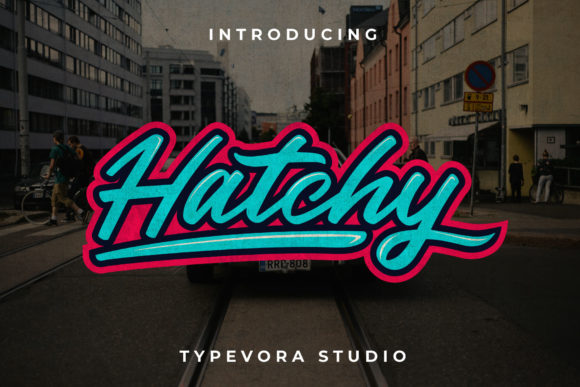
Hatchy Font: The Ultimate Guide to Adding a Spark of Joy to Your Designs
Hatchy is a catchy, cheerful and vibrant script that will add a spark of joy to any design idea! This delightful font is perfect for designers and crafters looking to infuse their projects with a playful and energetic vibe. In this comprehensive article, we’ll dive into the world of Hatchy Font, exploring its features, uses, and benefits, as well as provide tips and inspiration for incorporating it into your designs.
What is Hatchy Font?
Hatchy Font is a modern script font that boasts a unique and charming personality. Its curly, swirly letters are designed to evoke a sense of happiness and friendliness, making it perfect for projects that require a touch of whimsy and playfulness. Whether you’re working on a branding project, a craft tutorial, or a social media graphic, Hatchy Font is sure to bring a smile to your audience’s faces.
Key Features of Hatchy Font
- Catchy and Cheerful: Hatchy Font is designed to be attention-grabbing and fun, making it perfect for headlines, titles, and other design elements that need to stand out.
- Vibrant and Energetic: The font’s playful and dynamic feel makes it ideal for projects that require a burst of energy and creativity.
- Script Style: Hatchy Font features a beautiful, flowing script style that’s perfect for adding a touch of elegance and sophistication to your designs.
- Easy to Read: Despite its playful nature, Hatchy Font is surprisingly easy to read, making it suitable for use in body text and other longer-form content.
Uses for Hatchy Font
Hatchy Font is incredibly versatile, making it suitable for a wide range of design projects and applications. Here are some ideas to get you started:
- Branding and Logo Design: Use Hatchy Font to create a memorable and eye-catching logo that reflects your brand’s playful personality.
- Crafting and DIY Projects: Add a touch of whimsy to your craft tutorials, patterns, and other DIY projects with Hatchy Font.
- Social Media Graphics: Use Hatchy Font to create engaging and shareable social media graphics that showcase your brand’s personality.
- Party Decorations: Create custom party decorations, such as invitations, banners, and garlands, using Hatchy Font.
Benefits of Using Hatchy Font
So why choose Hatchy Font for your design projects? Here are just a few benefits of using this delightful font:
- Unique and Memorable: Hatchy Font is sure to make your designs stand out from the crowd and leave a lasting impression on your audience.
- Easy to Use: With its clear and readable design, Hatchy Font is easy to use in a variety of contexts, from headlines to body text.
- Versatile: Hatchy Font is suitable for a wide range of design projects and applications, making it a great addition to any designer’s toolkit.
- Fun and Playful: Hatchy Font is the perfect way to add a touch of fun and playfulness to your designs, making it ideal for projects that require a lighthearted and creative approach.
Tips for Using Hatchy Font
Here are a few tips for getting the most out of Hatchy Font:
- Use it as a Headline Font: Hatchy Font is perfect for use in headlines and titles, where its playful and attention-grabbing nature can really shine.
- Pair it with Other Fonts: Experiment with pairing Hatchy Font with other fonts to create a unique and visually appealing typography scheme.
- Experiment with Colors: Don’t be afraid to try out different colors and color combinations with Hatchy Font to add an extra layer of visual interest to your designs.
- Have Fun: Most importantly, have fun with Hatchy Font! Its playful nature makes it the perfect choice for designers who want to add a touch of whimsy and creativity to their projects.
In conclusion, Hatchy Font is a delightful and versatile script font that’s perfect for designers and crafters looking to add a spark of joy to their projects. With its catchy, cheerful, and vibrant personality, Hatchy Font is sure to make your designs stand out from the crowd and leave a lasting impression on your audience. So why not give it a try and see the difference it can make in your designs?